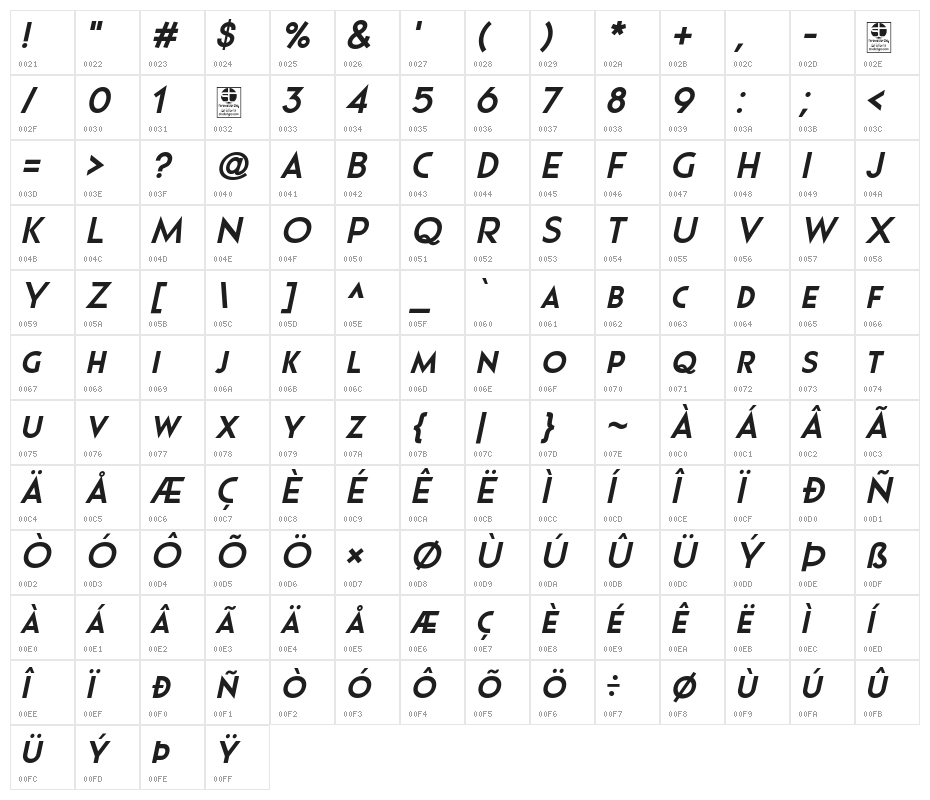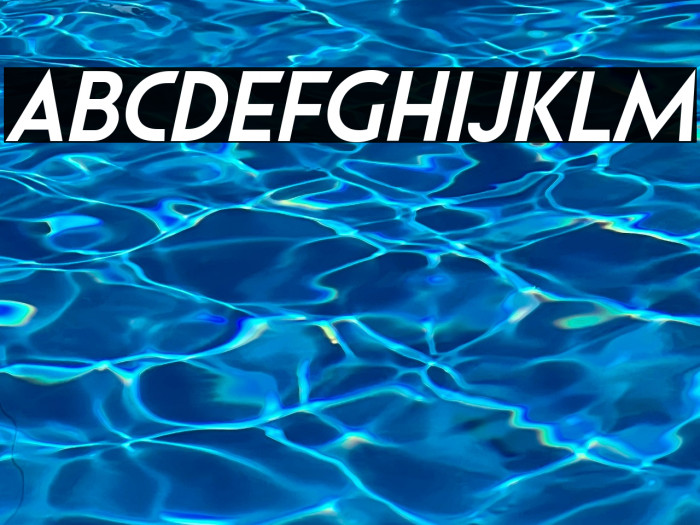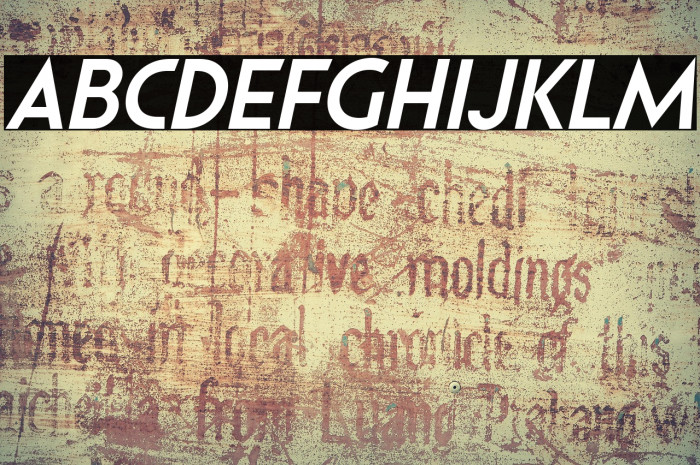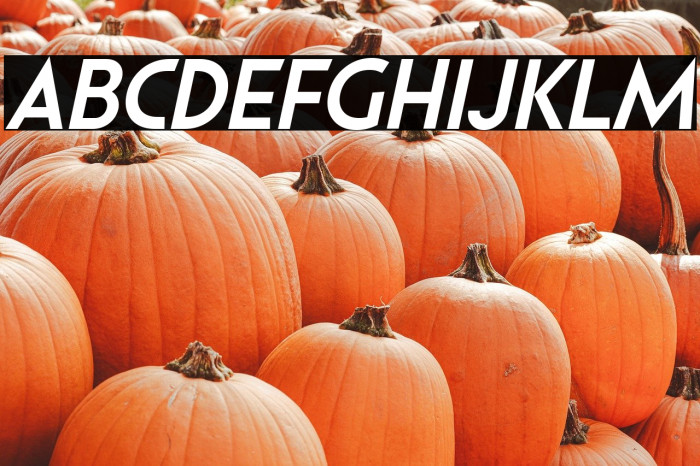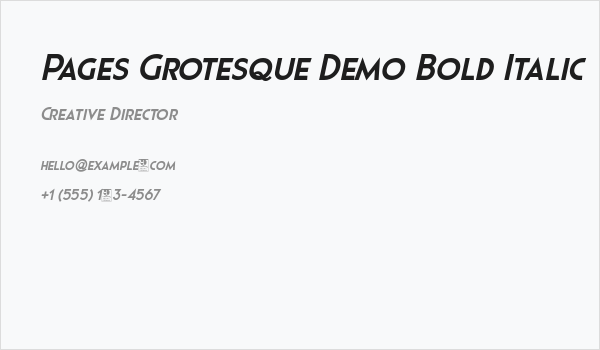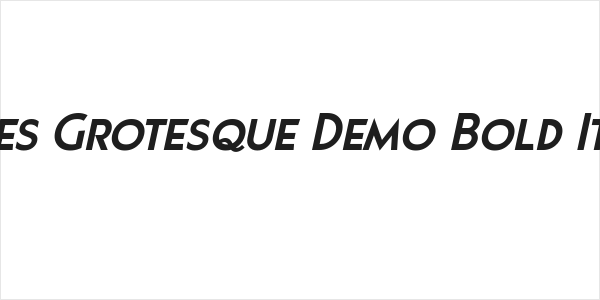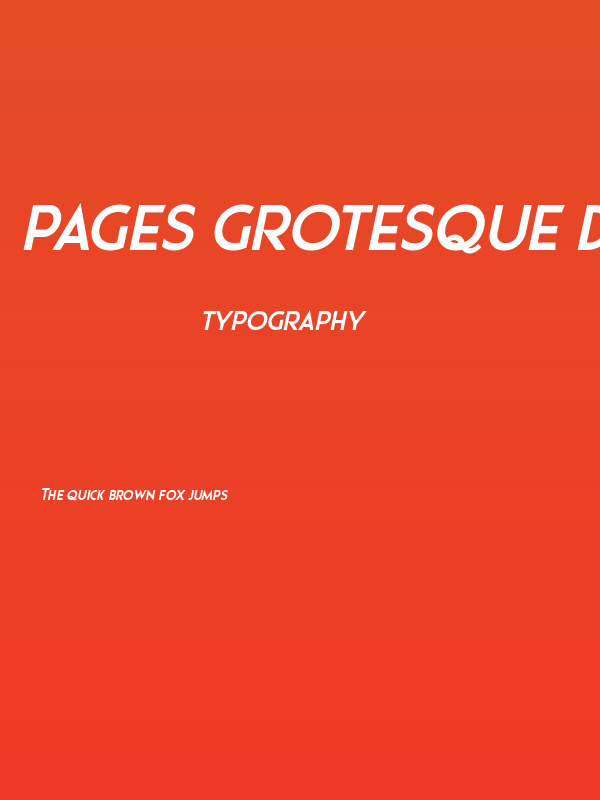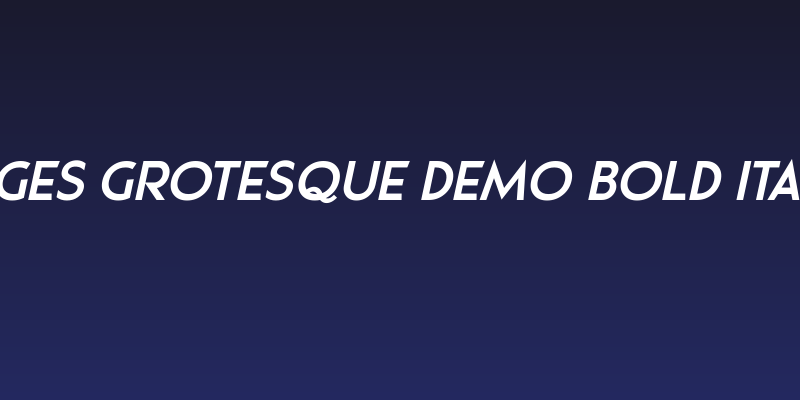
Pages Grotesque Demo Bold Italic Font
Pages Grotesque Demo Bold Italic Description
This font features a bold and italicized style with a modern, sans-serif design. The characters are sharply defined with clean lines and a slight slant, giving them a dynamic and forward-moving appearance. The uppercase letters are uniform in height, while the lowercase letters maintain a consistent baseline, enhancing readability. The numerals are well-proportioned, and the special characters are distinct, making them suitable for various design applications. The overall look is sleek and contemporary, ideal for making a strong visual impact.